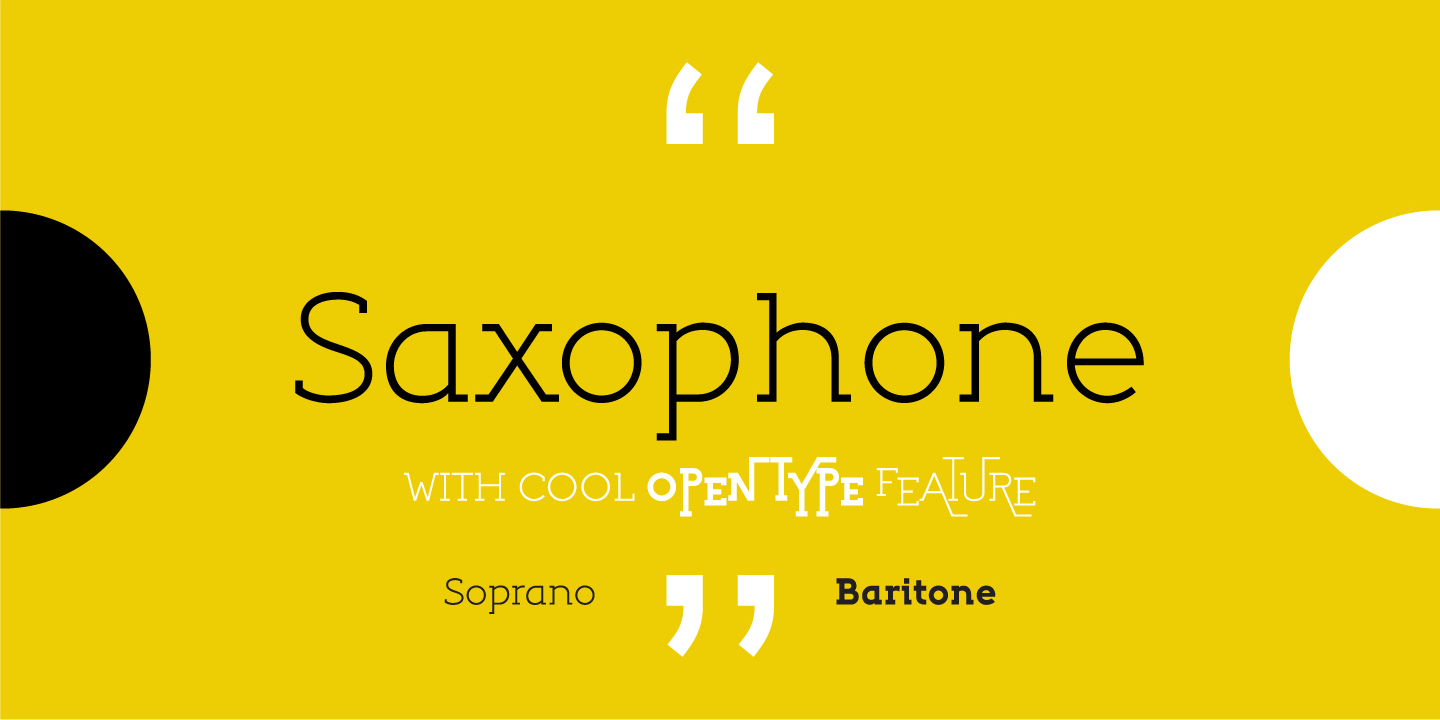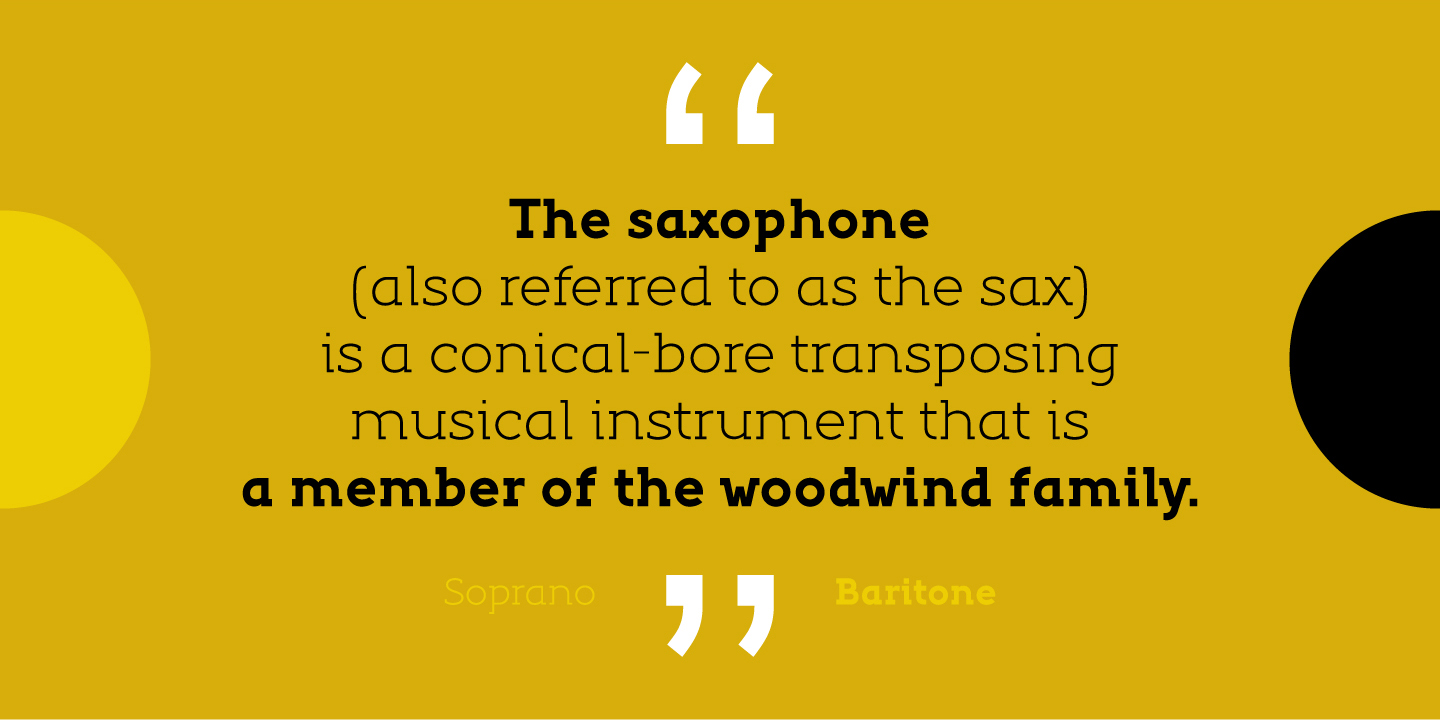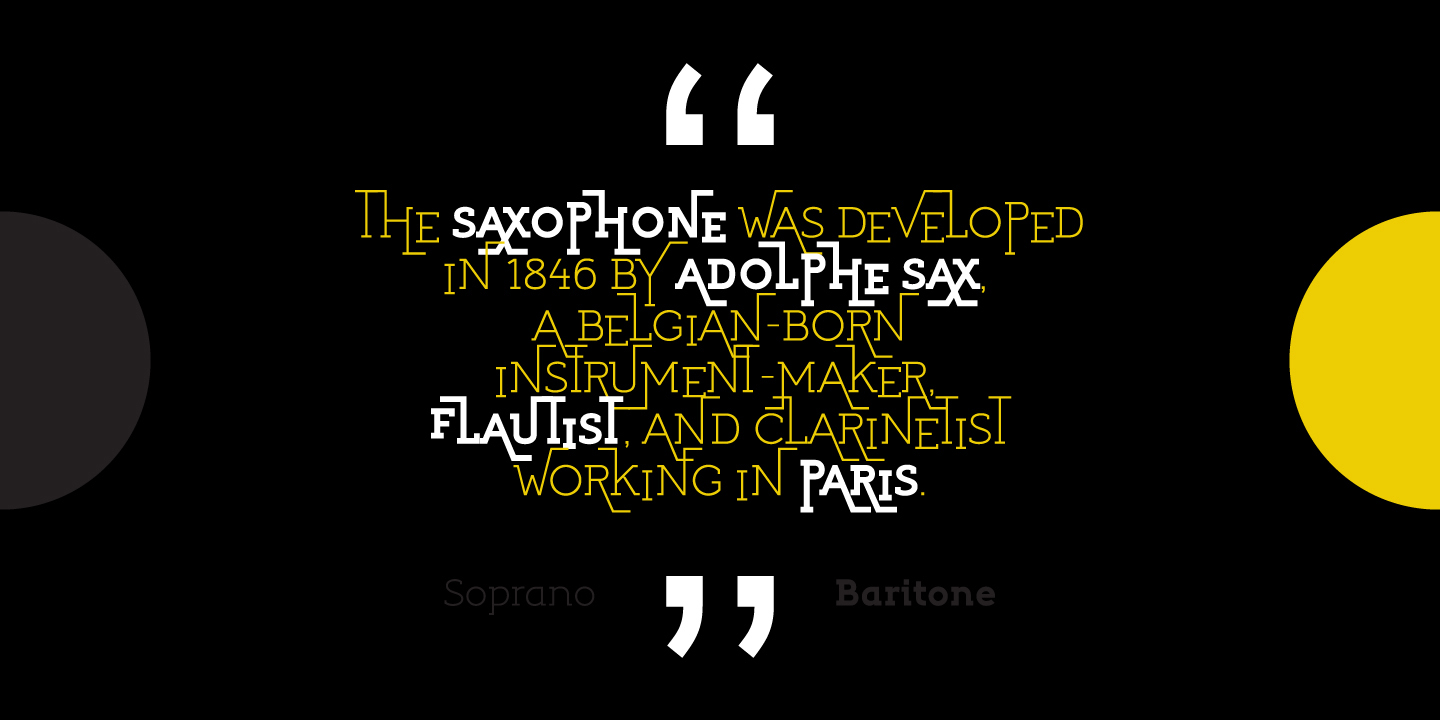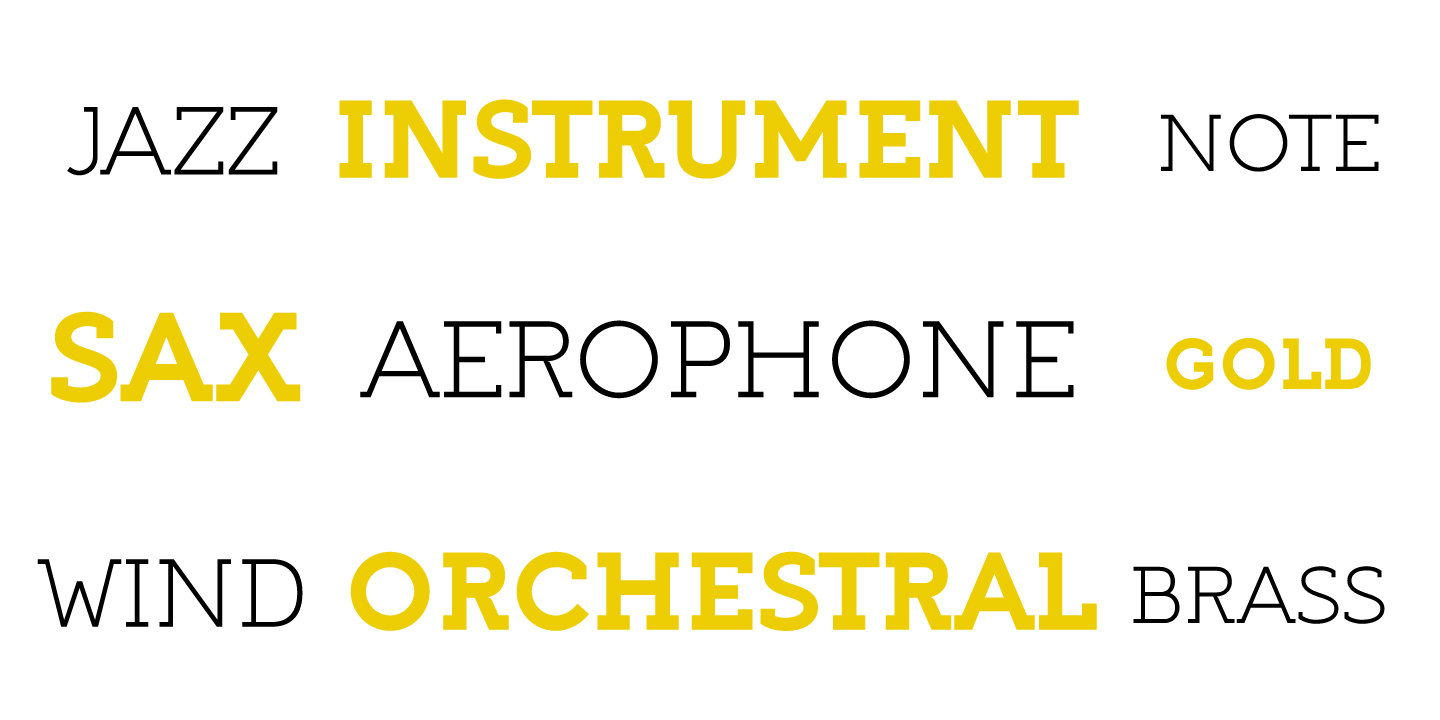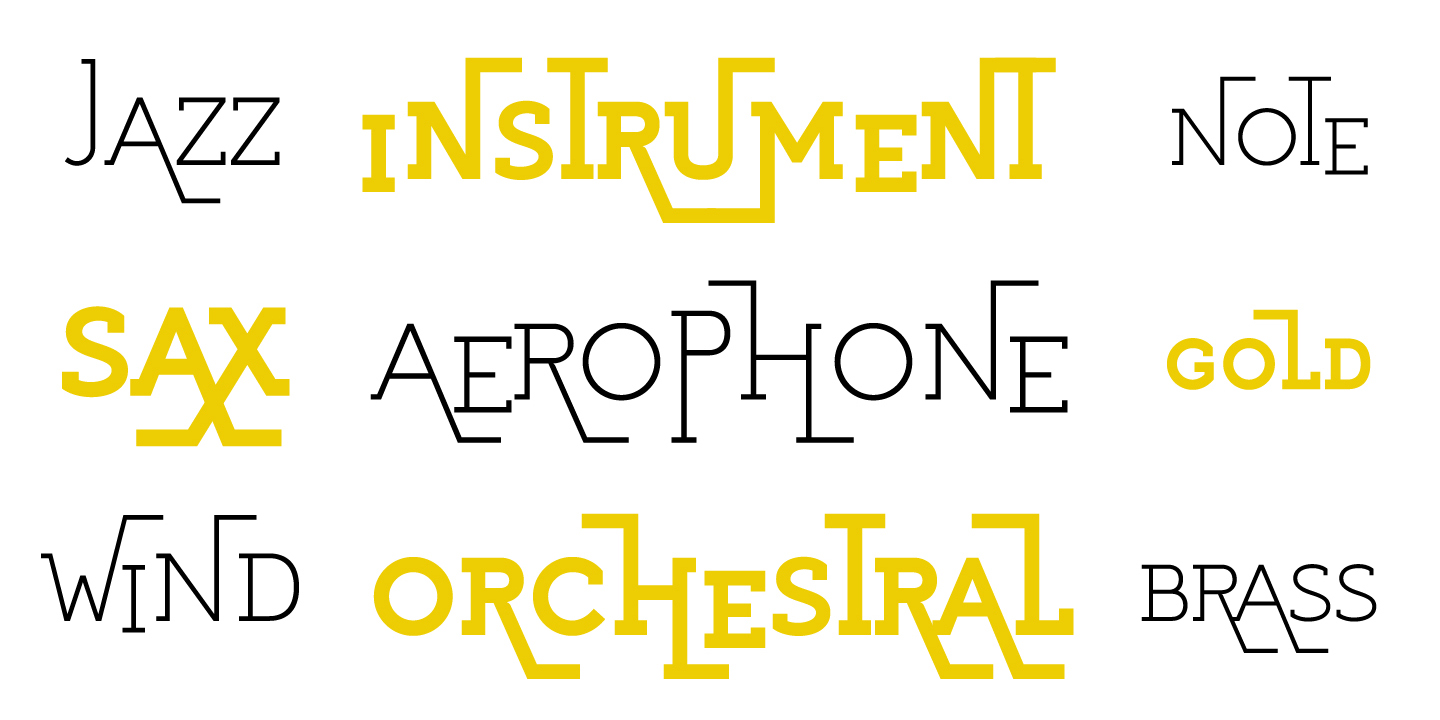
With lively Stylistic Alternates in capital letters, the Saxophone font family is a metaphorical equivalent of the instrument, which can be used in almost all music genres.